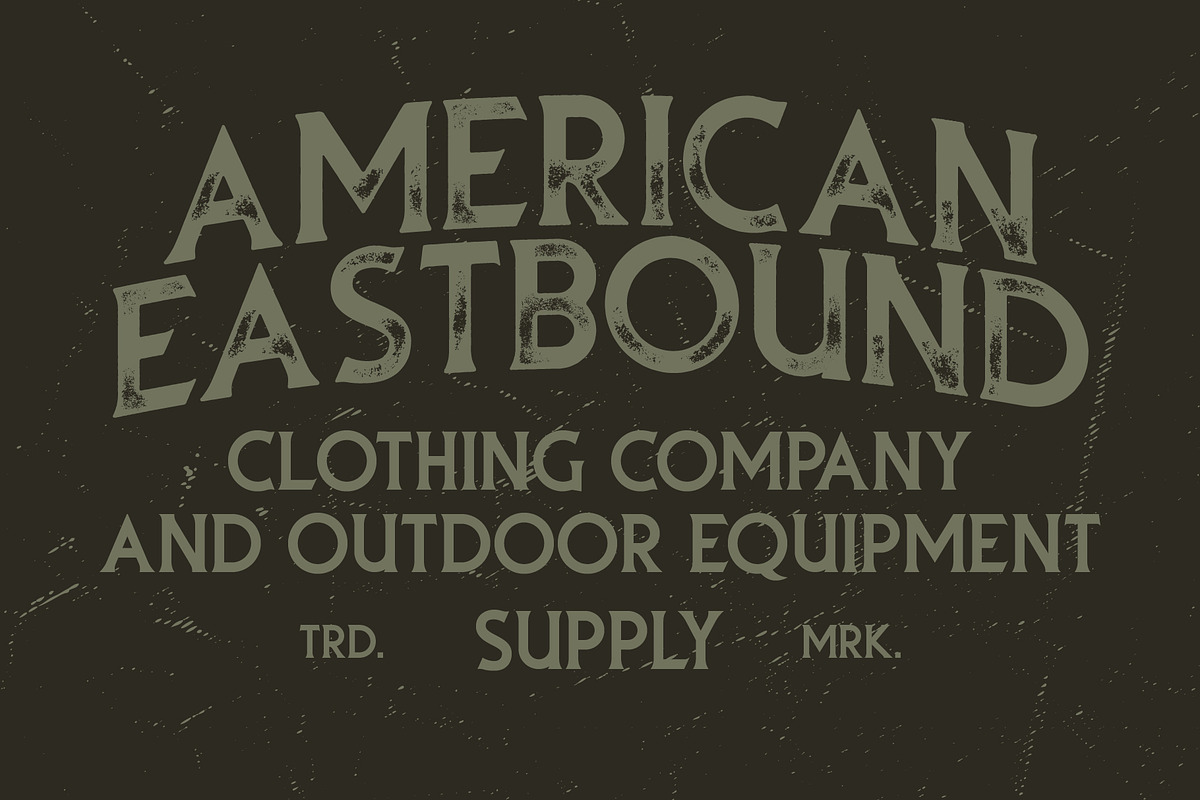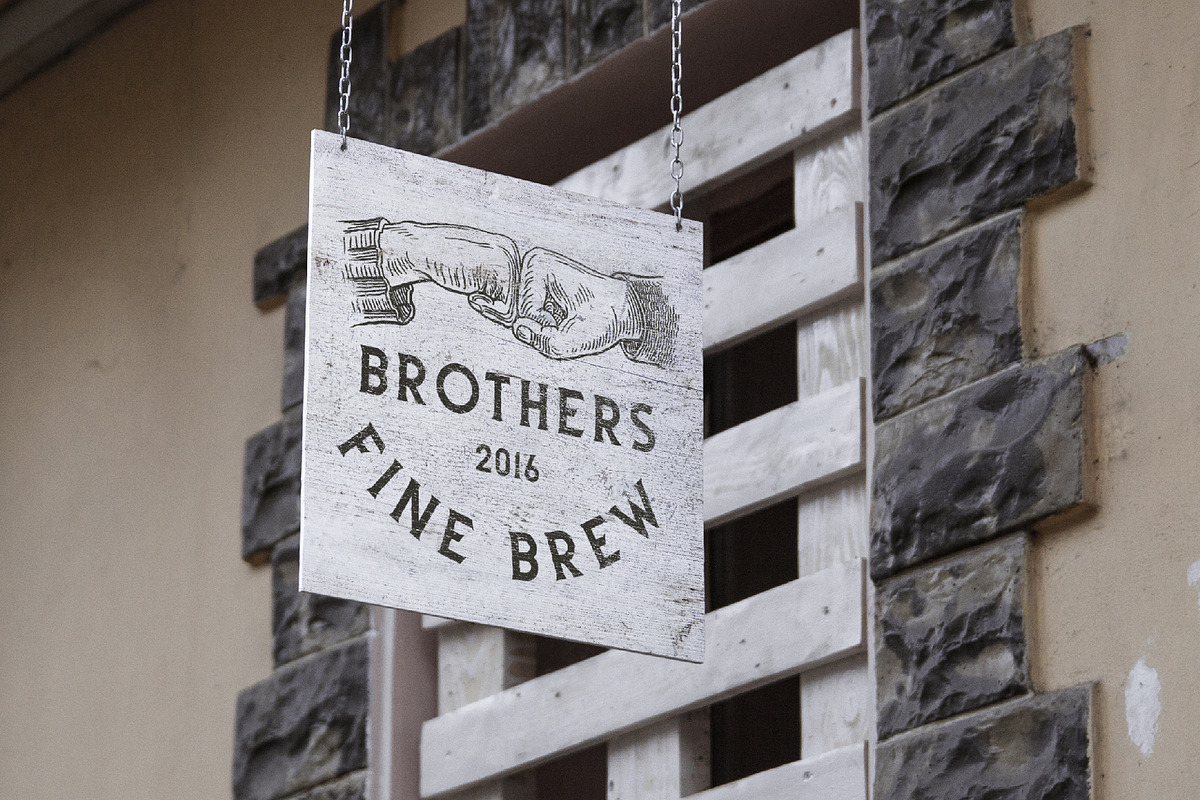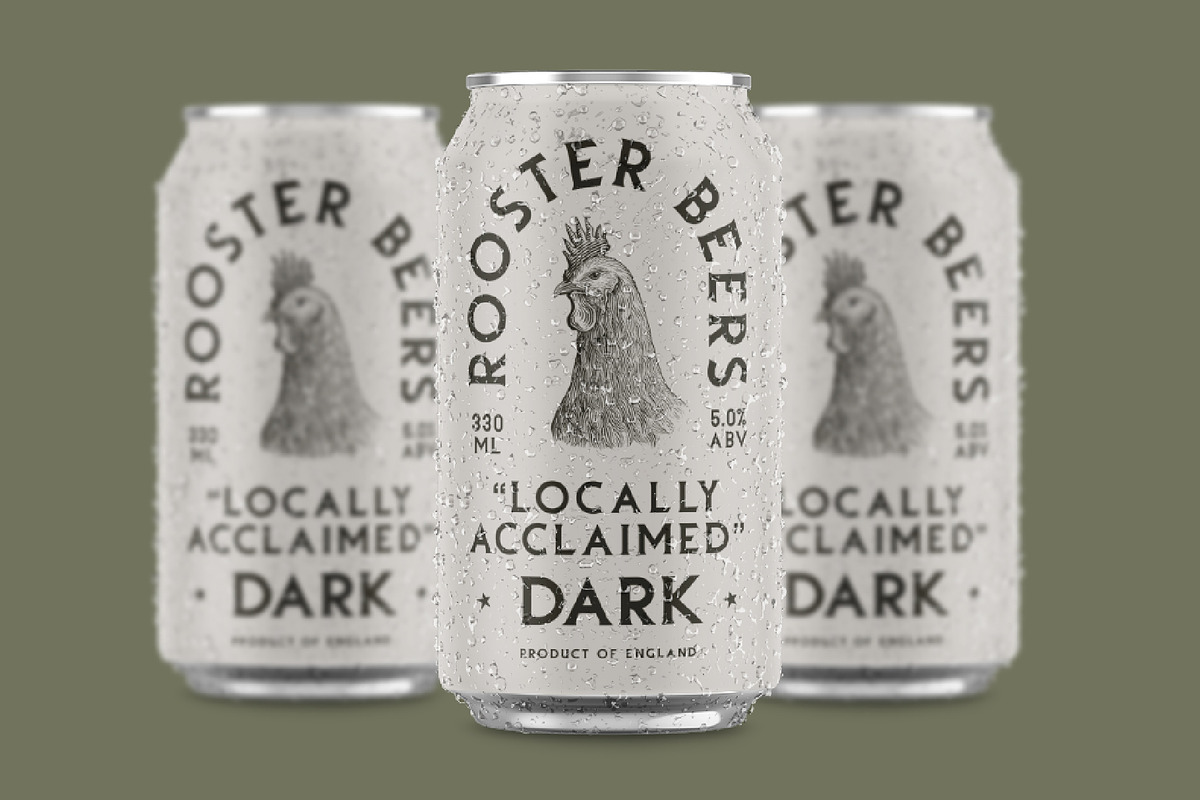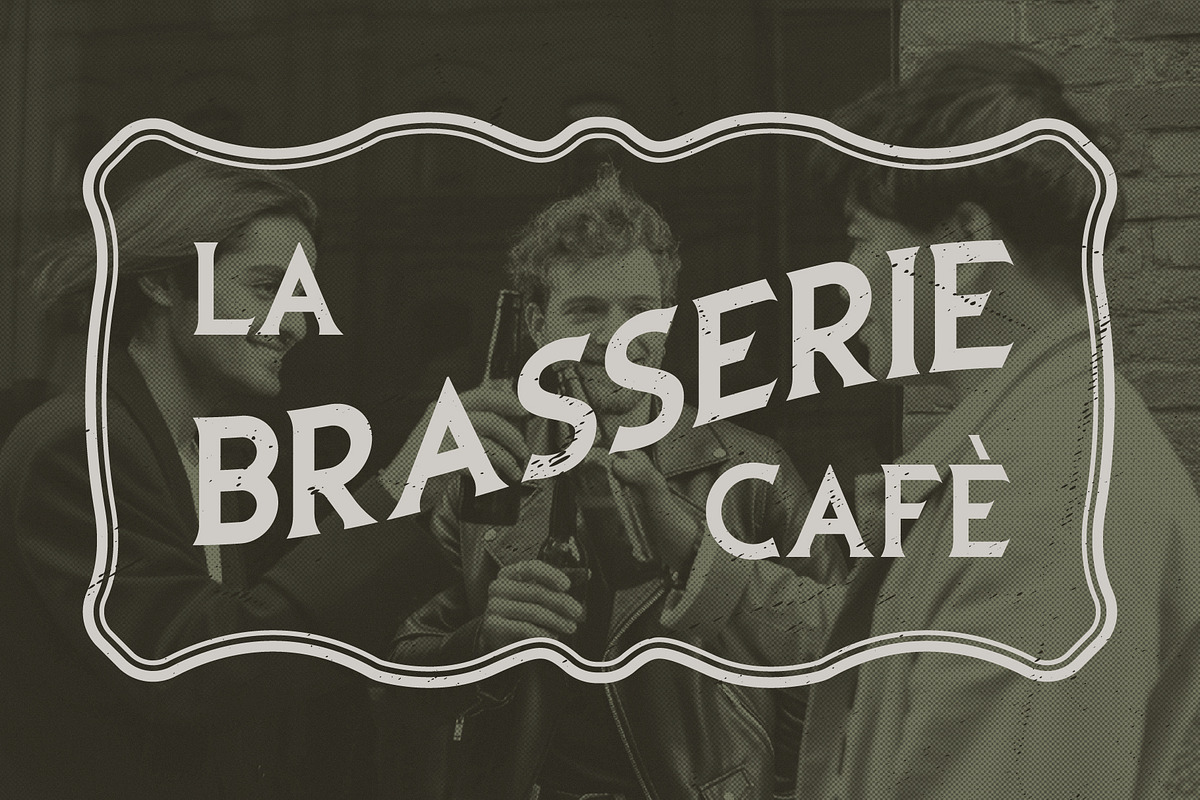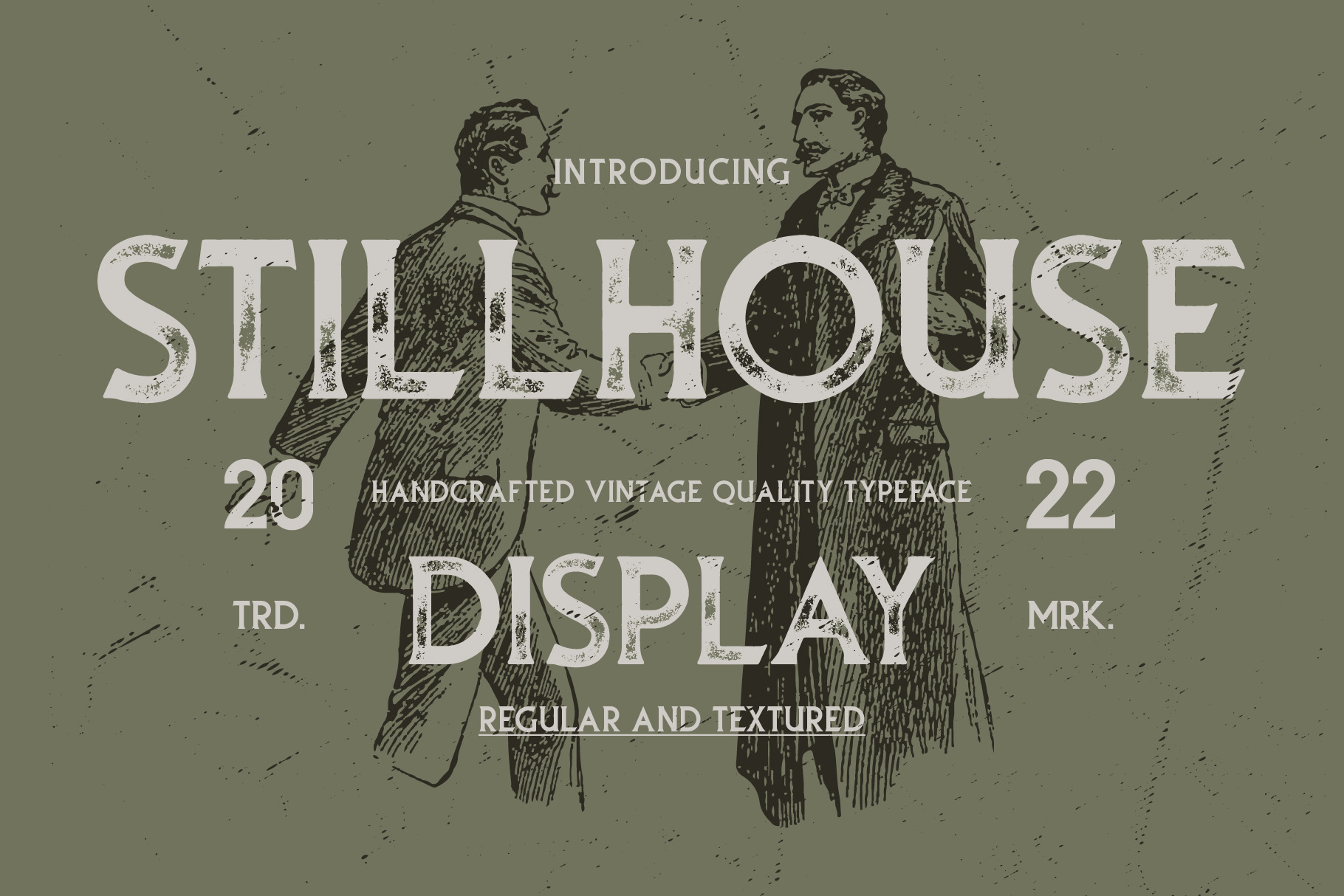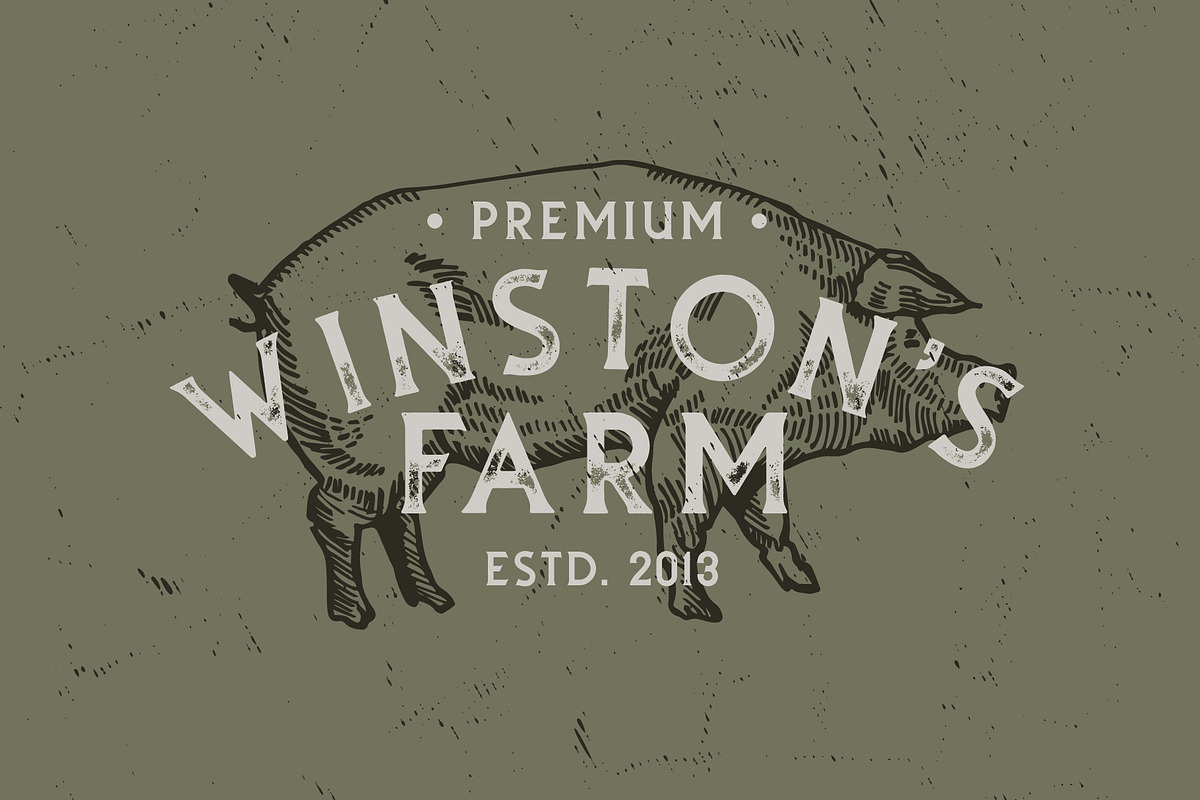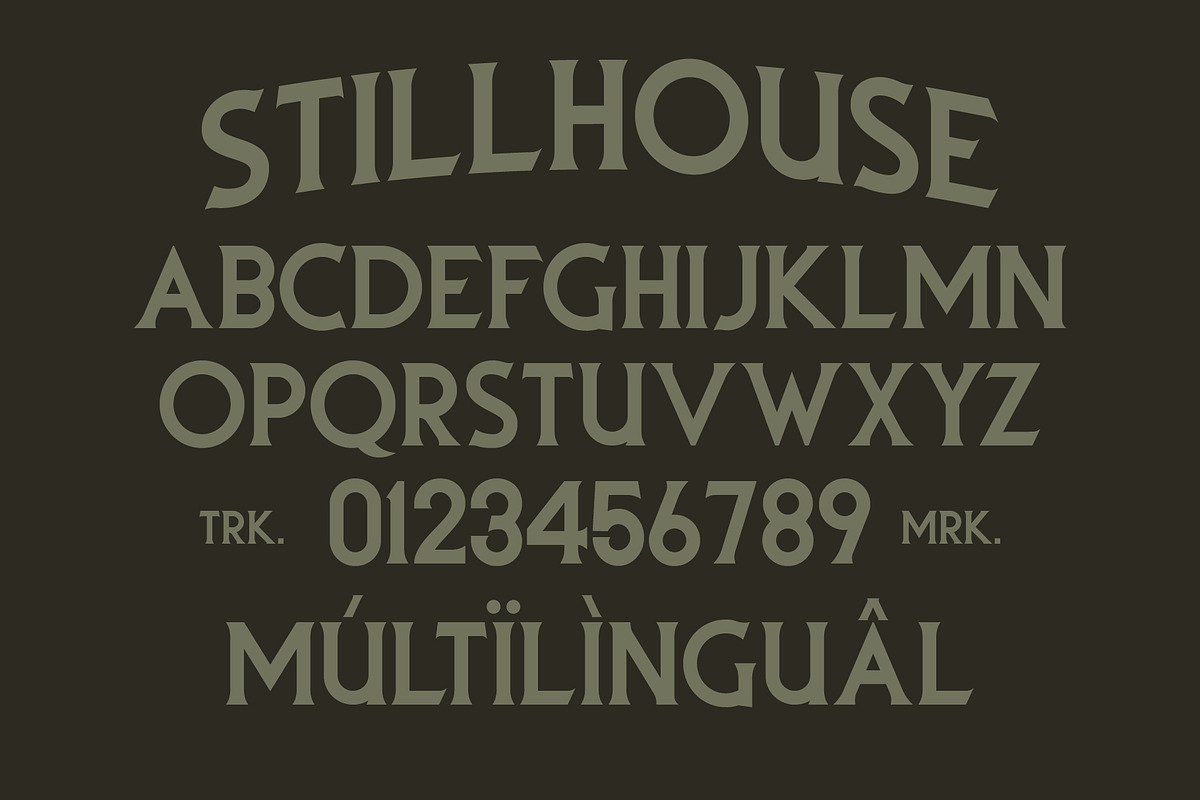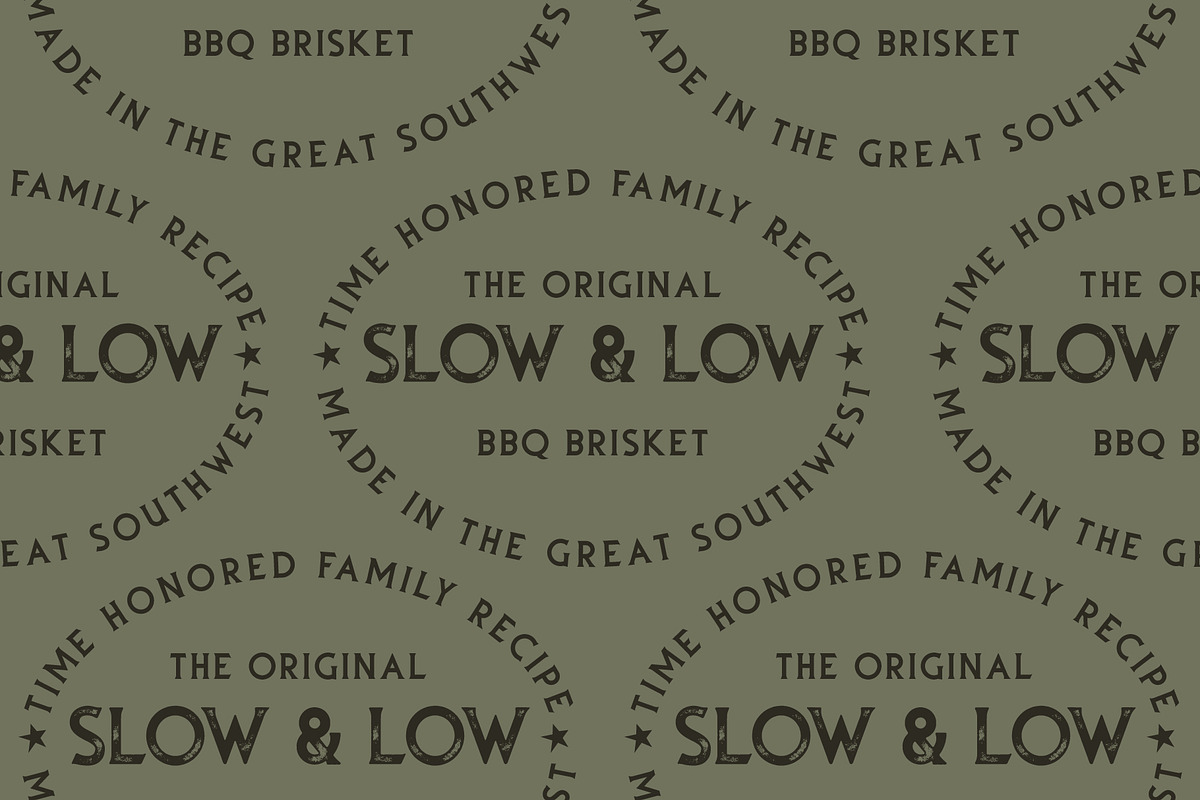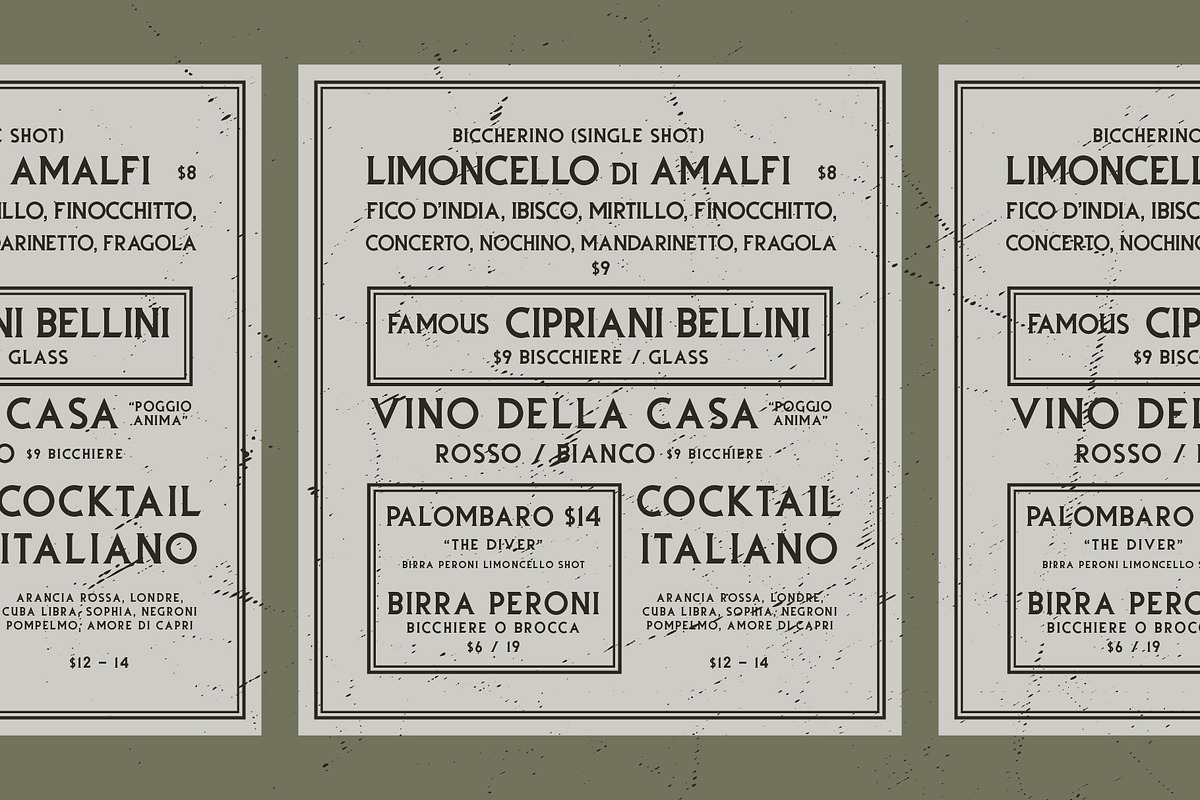
Stillhouse - Textured Vintage Font
Stillhouse is a vintage serif font that features 2 styles - Textured & Solid. This typeface is great for achieving that rustic aesthetic which is popular in restaurant branding, apparel designs and product packaging.